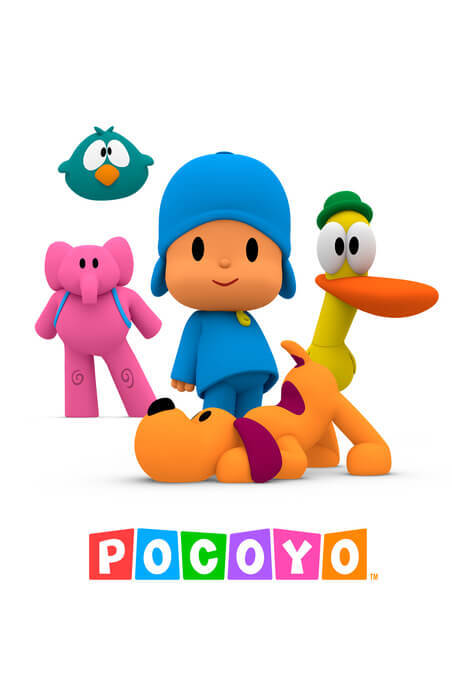
Pocoyo Font
Pocoyo is a Spanish animated interactive preschool comedy television series created by Guillermo García Carsí, Colman López, Luis Gallego and David Cantolla, and is produced by the Spanish animation company Zinkia Entertainment. The font is available in all caps, licenced as free for personal use and is free to download. Click the above link to download Pocoyo font.